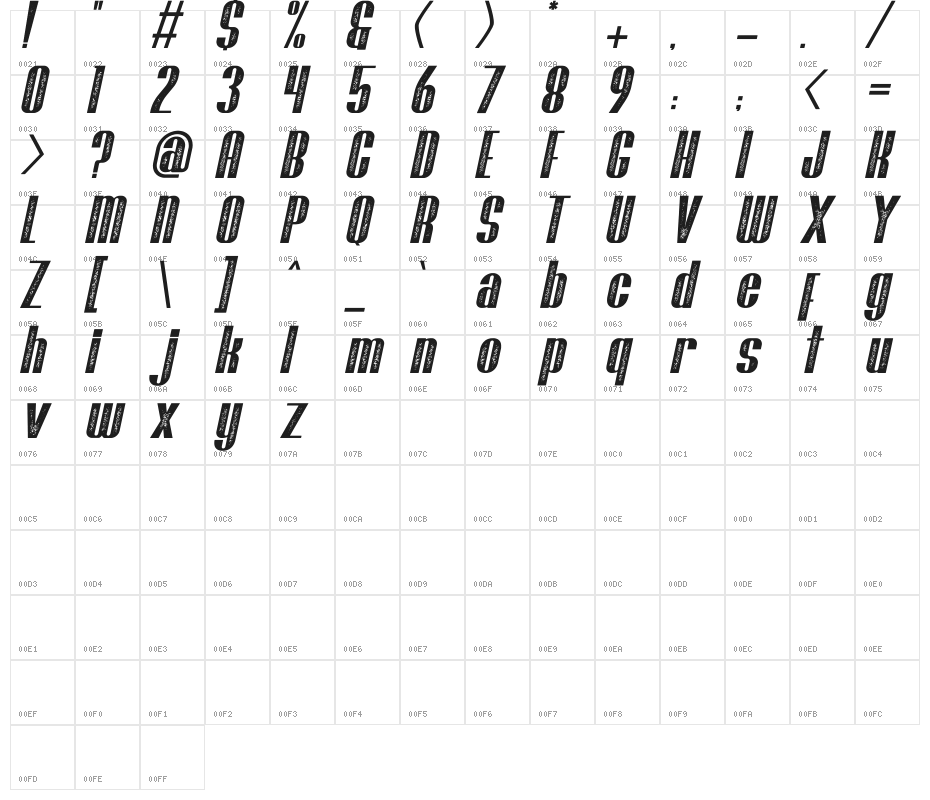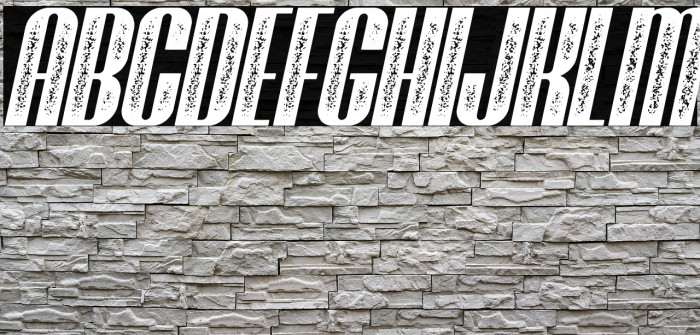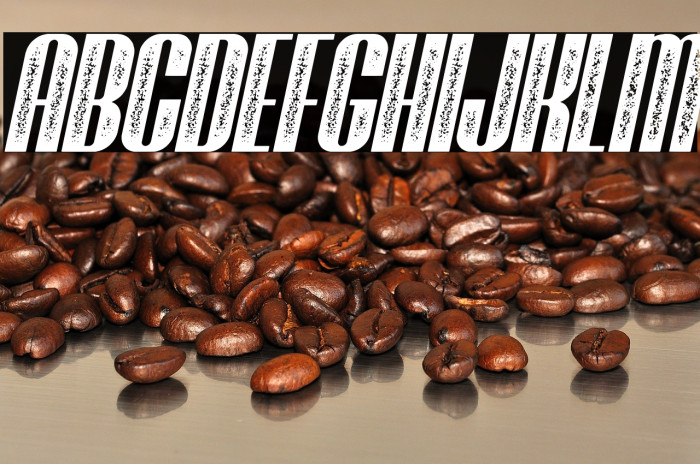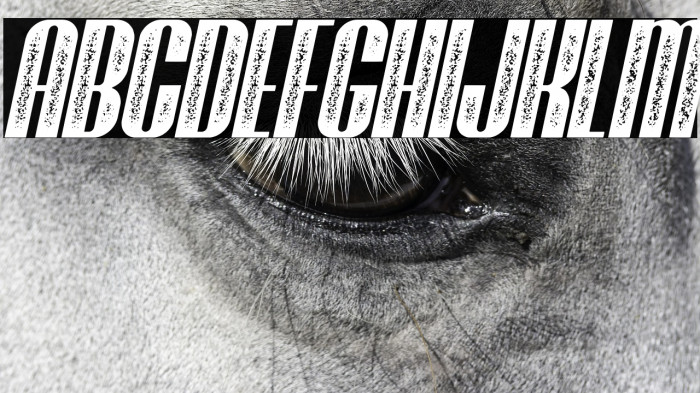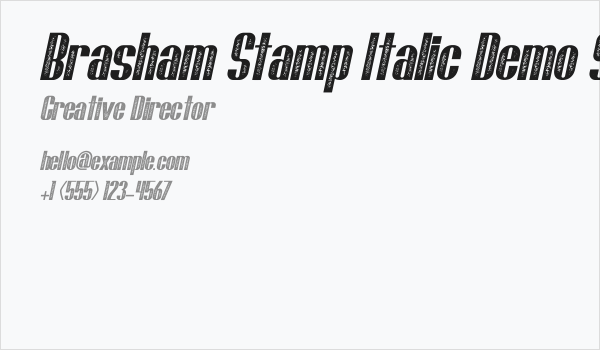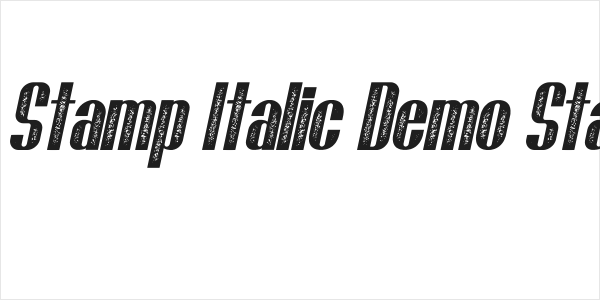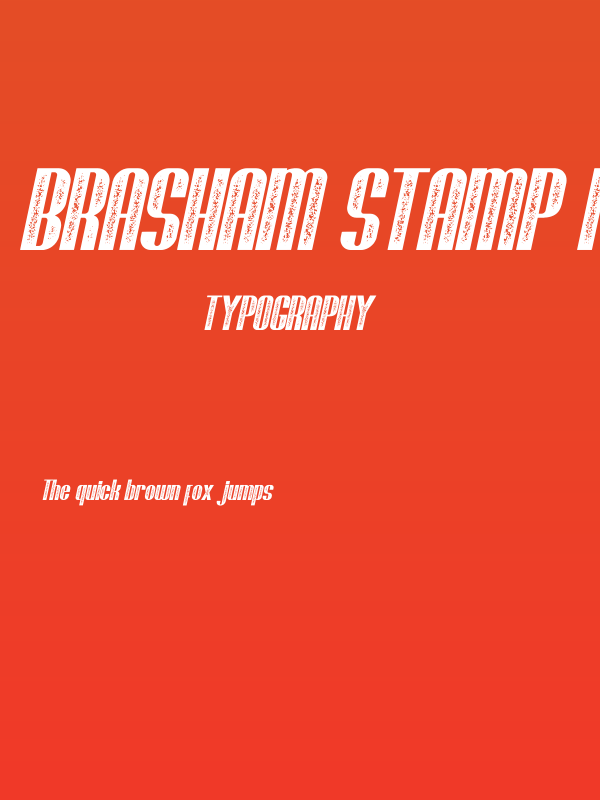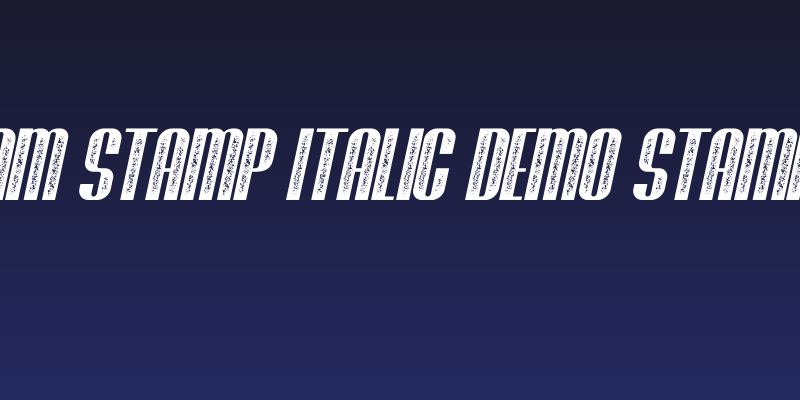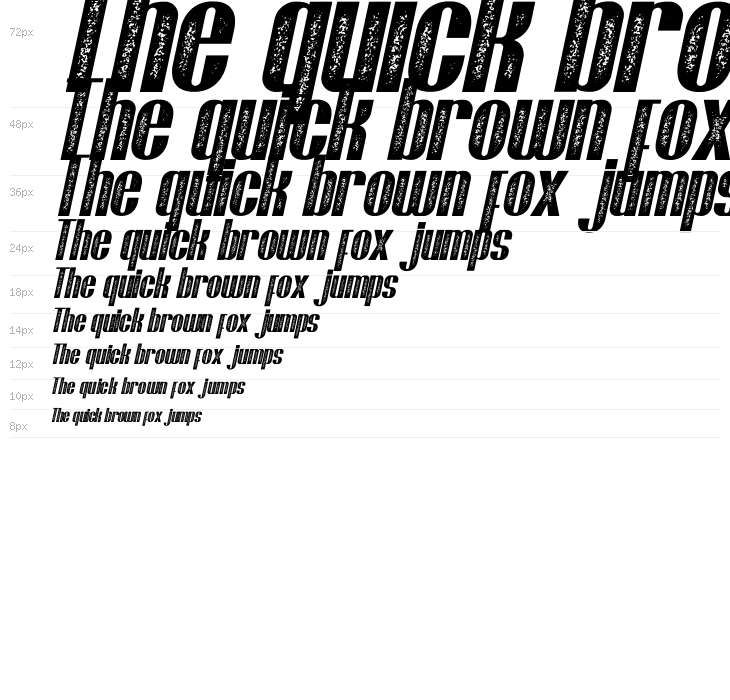
Brasham Stamp Italic Demo Stamp Italic Font
Brasham Stamp Italic Demo Stamp Italic Description
This font features a bold, italicized style with a distinct distressed texture, giving it a rugged, vintage appearance. The uppercase and lowercase letters are designed with a consistent slant, enhancing the italic effect. The numerals and special characters maintain the same textured look, ensuring uniformity across all glyphs. The font's bold weight and condensed width make it stand out, while the textured finish adds a unique character, making it suitable for projects that require a strong, impactful visual presence.
| Proposed Projects | Ideal for branding, posters, and packaging designs that require a bold, vintage aesthetic. |